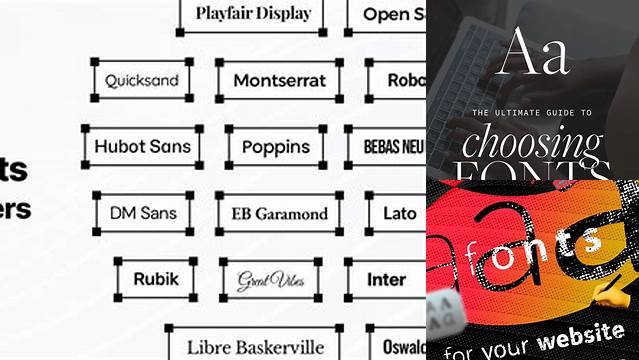
Best Website Fonts CSS: Ultimate Guide
Best Website Fonts CSS: Elevate Your Web Design
Are you looking to make your website stand out from the crowd, guys? One of the easiest ways to do this is by choosing the right fonts. But with so many options out there, it can be tricky to know where to start. That's where this guide comes in! We'll dive into the world of best website fonts CSS, showing you how to pick fonts that not only look great but also boost your website's performance and readability. Get ready to transform your website from blah to bam! In this article, we will explore the best website fonts CSS, and give you the tools you need to create a visually appealing and user-friendly website.
The Importance of Website Fonts
First things first, why are website fonts so important, right? Well, fonts are more than just pretty letters; they're a key part of your website's design and user experience (UX). A well-chosen font can make your website look professional, trustworthy, and easy to read. On the flip side, a poorly chosen font can make your website look cluttered, amateurish, and drive visitors away faster than you can say "font fail." The font you choose communicates a lot about your brand. Is your brand playful, serious, modern, or traditional? The font should reflect that. Think of it like choosing clothes; you wouldn't wear a tuxedo to the beach, would you? The font should match the personality of your website and the message you're trying to send. Let's talk about readability. This is super important! If your text is hard to read, visitors will bounce off your site in seconds. Fonts that are too small, too fancy, or just plain weird can make reading a real struggle. You want your visitors to stay on your site, consume your content, and convert, yo. Easy-to-read fonts make the whole experience smoother. They make sure the information you're sharing gets absorbed without any friction. Fonts also affect how long visitors stay on your site. If they can easily read and enjoy your content, they are more likely to stick around. The longer they stay, the better the chance they'll convert. Website fonts also affect the overall mood and feel of your website. Different fonts evoke different emotions. A sleek, modern sans-serif font can make your site feel cutting-edge, while a classic serif font can give it a touch of elegance and tradition. Your font choices can boost your website's SEO. Search engines consider UX, and if visitors are bouncing because your fonts are a hot mess, your rankings will suffer. So, choosing the right fonts is a big deal, and you've got to get it right!
Popular CSS Fonts for Websites
Now, let's get down to the good stuff, people! Here are some of the most popular and effective CSS fonts you can use to make your website look amazing. These fonts have been carefully chosen for readability, versatility, and overall aesthetic appeal. They work well in many different contexts, from blogs and portfolios to e-commerce sites. We'll cover some of the most popular ones that are used everywhere. Ready to dive in?
Arial: Arial is a classic, widely used sans-serif font known for its simplicity and clarity. It's easy to read on screens, making it a great choice for body text and headlines. Plus, it’s a web-safe font, meaning it's already installed on most computers, so you don't have to worry about it loading slowly. It's perfect for websites that need a clean, straightforward look. Arial is like the reliable friend of web fonts – always there, always consistent. Arial is great for professional sites, blogs, and anything that requires a clean, clear message. It's a go-to font, for real. It is widely supported across all browsers and devices, ensuring a consistent look for your website visitors. Its neutrality means it won’t clash with other design elements, allowing your content to shine.
Helvetica: Similar to Arial, Helvetica is another widely used sans-serif font. It's known for its clean lines and neutrality, making it suitable for a wide range of websites. Helvetica is a staple in the design world. It's incredibly versatile and works well for both body text and headlines. Because it is easy to read and visually appealing, it's a solid choice for many websites. Helvetica is known for its excellent readability and professional appearance. It's like the cool older sibling of Arial, with a slightly more refined look. Helvetica provides a sense of sophistication and clarity. It is ideal for modern websites, corporate sites, and any project that values a clean and contemporary aesthetic. It is a very safe bet, no doubt.
Times New Roman: This serif font is a classic choice for websites. It's known for its elegance and traditional feel, making it great for websites that need a touch of formality. Times New Roman is one of the most recognizable fonts out there. It's perfect for websites that need a touch of sophistication or want to evoke a sense of tradition. Best for articles, blogs, and any site where you want to create a sense of trust and authority. The serifs can help guide the eye across the page, making it great for lengthy text. It's easy on the eyes and has been a favorite for readability in print for decades. This font works best for text-heavy content like articles or long-form blog posts. It’s great for websites that emphasize readability and trust.
Georgia: Georgia is another excellent serif font designed specifically for on-screen readability. It's slightly more modern than Times New Roman and is a great option for body text. It's designed for readability on screens, so your visitors will have an easy time reading your content. Georgia is a great choice if you want a serif font that feels a bit more modern than Times New Roman. It's perfect for websites that want to convey a sense of trustworthiness and readability. It works very well for blogs, articles, and any site where readability is key. Its slightly larger x-height (the height of the lowercase letters) makes it incredibly easy to read on any screen size. If you are looking for a readable serif font for your website, go for Georgia! It enhances the readability of the content and creates a welcoming experience for your users.
Open Sans: Open Sans is a popular sans-serif font designed by Google. It's a highly versatile font, perfect for both body text and headlines. The font is designed to be friendly and approachable. It is perfect for websites that want a modern, user-friendly look. It is very versatile and can be used for everything from blogs to corporate sites. It's known for its clean lines and excellent readability. Open Sans is a favorite for a reason; it looks good, reads well, and is available for free use. The font is a great choice for those who are after a modern look and feel. This font is also a great choice if you are looking for a modern font for your website. This is a great choice for many websites because it’s versatile and looks great.
Roboto: Roboto is another sans-serif font from Google. It's a highly readable and versatile font that works well for both body text and headlines. It's known for its clean lines and geometric shapes. Roboto is a great option if you want a font that is both stylish and functional. Its clean lines and easy readability make it great for just about any type of website. It strikes a great balance between being modern and functional. It is a perfect choice for websites that want a balance of modern design and user-friendly readability.
Lato: Lato is a sans-serif font that's known for its friendly and approachable style. It's a great choice for body text and headlines. The font is easy on the eyes and feels welcoming, which is perfect for websites that want to create a positive user experience. It's perfect for blogs, portfolios, and websites that need a touch of warmth. It has a clean and friendly aesthetic. Its readability makes it ideal for both body text and headlines. Lato is a popular choice for websites that want to appear modern and welcoming. It’s a perfect choice if you want to make your site feel more approachable.
How to Implement CSS Fonts on Your Website
Alright, guys, now that you know about some awesome fonts, let's talk about how to actually get them onto your website using CSS. It's not as complicated as you might think. We'll walk through the basic steps.
Font Selection: Pick the fonts that best suit your website's style and purpose. Consider the font's readability, personality, and the overall user experience you want to create. This is probably the most important step! Your font choice can drastically affect the impression your site makes. Select fonts that match the tone of your website and target audience.
Font Family Declaration: Use the
font-family
property in your CSS to specify the fonts you want to use. You can apply this property to different elements like<body>
,<p>
,<h1>
, etc. This will apply the font to the specified element. For example, to use Arial for all paragraph elements, you'd writep { font-family: Arial; }
. Be sure to include a list of fallback fonts, which is important to ensure your content is displayed correctly across different browsers. -
Font Weight and Style: Use the
font-weight
andfont-style
properties to control the font's weight (e.g., bold, normal) and style (e.g., italic, normal). You can use these properties to make your text stand out. You can also add italics and bolding to further improve readability and create emphasis where needed. This gives you complete control over how your fonts appear on your website. Experiment with different combinations to find the perfect look for your website. -
Web Fonts (Google Fonts): For more advanced options, you can use web fonts from services like Google Fonts. Include a link to the font in your HTML
<head>
section, then use the font in your CSS. This gives you access to a vast library of fonts that you can use on your website. Google Fonts is a lifesaver. They are easy to use and offer a wide variety of fonts. This ensures your fonts load quickly and consistently. -
Testing and Optimization: After implementing your fonts, always test your website on different devices and browsers to ensure the fonts look as expected. Optimize your font files to make sure they load quickly without affecting your website's speed. Make sure to check how your site looks on different devices and browsers. If things aren't working right, go back and adjust your CSS. Website speed is a crucial factor in SEO. Optimize your website fonts by selecting appropriate font formats, and by using font subsets, to reduce the file size.
Tips for Choosing the Best Website Fonts
Here are some best website fonts CSS tips to keep in mind when choosing fonts for your website: You want your site to look good, but you also need to make sure it's user-friendly. Choosing the right fonts is crucial!
Consider Your Brand: Your fonts should align with your brand's personality and values. Are you aiming for a modern, professional, or playful look? Your font choices should reinforce this.
Prioritize Readability: Always prioritize readability. Choose fonts that are easy to read on screens, especially for body text. If your users can’t read your content, they won’t stick around.
Limit Font Choices: Don't go overboard with too many different fonts. Stick to a few fonts to maintain a consistent and clean design. Too many fonts can make your website look cluttered. Using a consistent style enhances readability and creates a polished look.
Choose Complementary Fonts: Pair fonts that work well together. For example, you might use a sans-serif font for headings and a serif font for body text. This creates visual interest and improves readability.
Test Across Devices: Ensure your fonts look good on all devices and browsers. Test your website on different devices to make sure that your fonts are displayed correctly.
Optimize for Performance: Use optimized font formats and minimize the number of fonts used to improve website loading speed. Website speed is a big deal for both user experience and SEO. Optimize your website to make sure it loads quickly and smoothly.
So there you have it, friends! Choosing the right fonts for your website can significantly impact its look, feel, and user experience. By considering your brand, prioritizing readability, and using the tips we've discussed, you can select fonts that make your website stand out. Remember to experiment, test your choices, and always keep your audience in mind. Now, go forth and create a website that's not only beautiful but also user-friendly! Your website will thank you, and so will your visitors. Keep in mind that choosing the right fonts is a journey. It's all about making your website look good and ensuring your visitors have a great experience. Choose wisely, and watch your website transform!